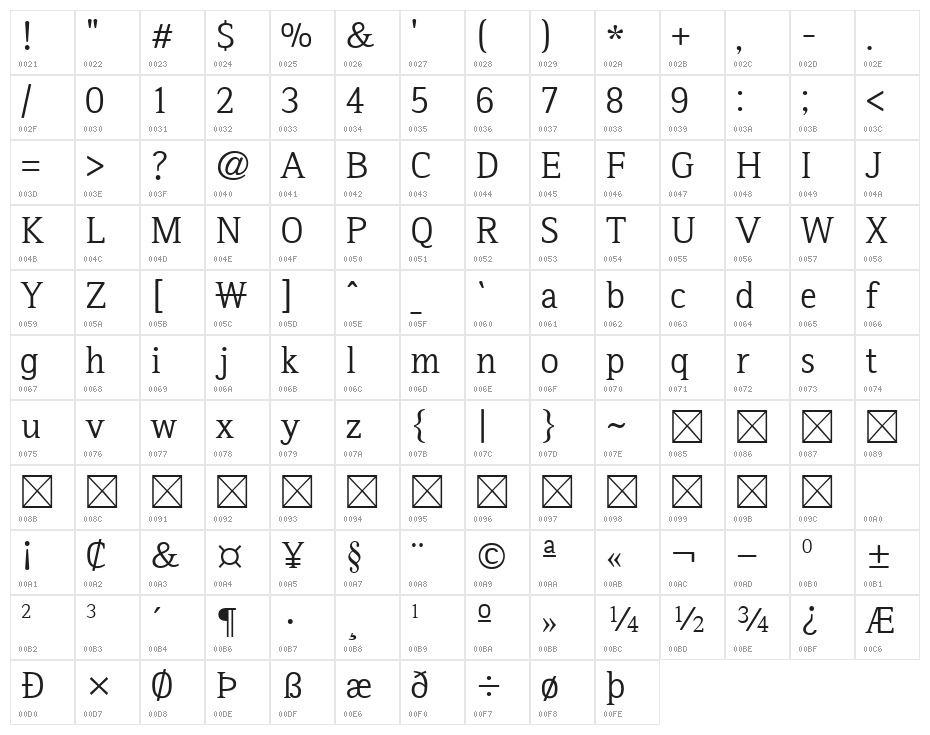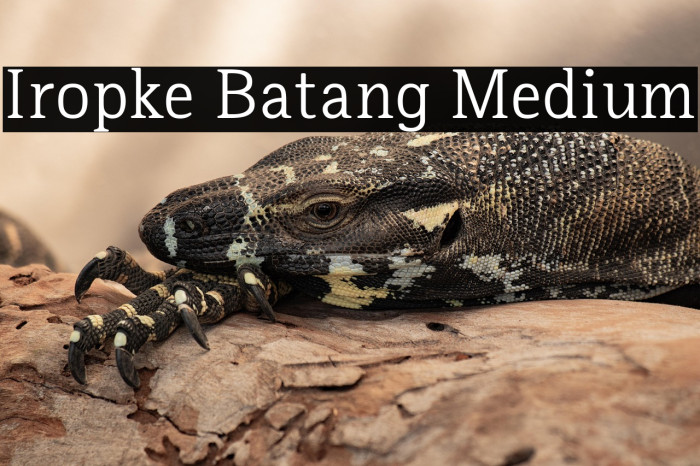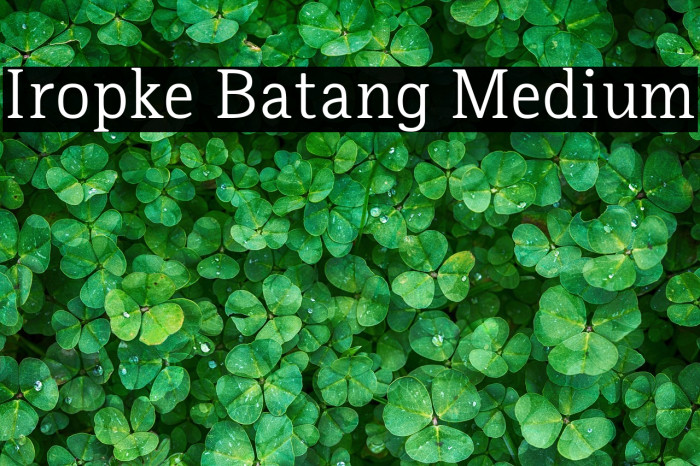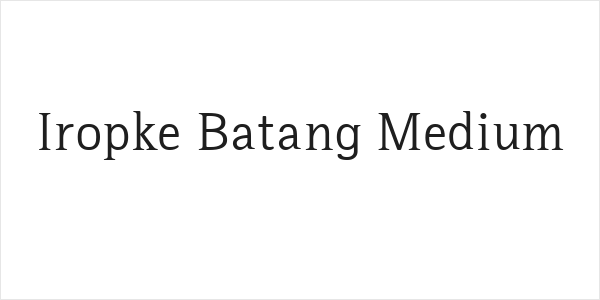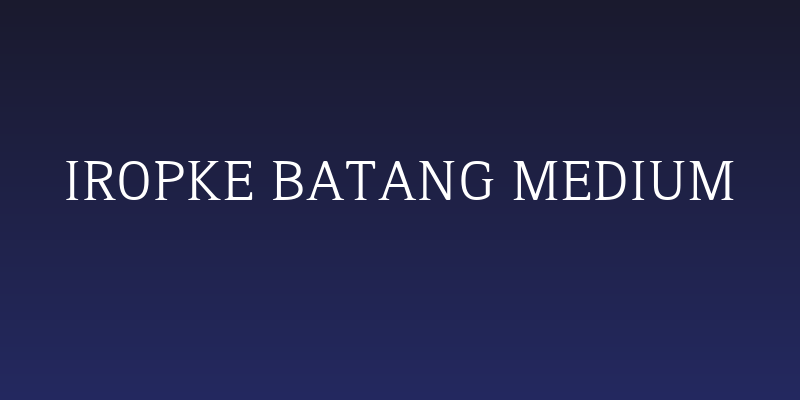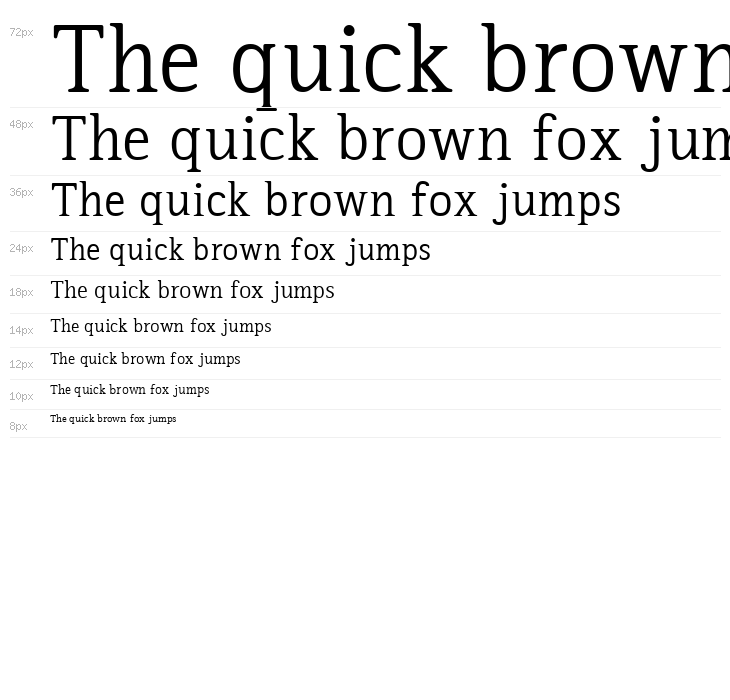
Iropke Batang Medium Font
Iropke Batang Medium Description
This font features a classic serif style with a balanced and elegant appearance. The serifs are well-defined, providing a traditional look that is both readable and sophisticated. The uppercase letters are slightly taller than the lowercase, maintaining a consistent and harmonious design. The numerals are clear and distinct, making them easily legible. Special characters are well-integrated into the overall style, ensuring versatility in various applications. The font's medium weight offers a perfect balance between lightness and boldness, making it suitable for both display and text purposes.
| Proposed Projects | Ideal for editorial design, book covers, formal invitations, and branding projects that require a touch of elegance and tradition. |